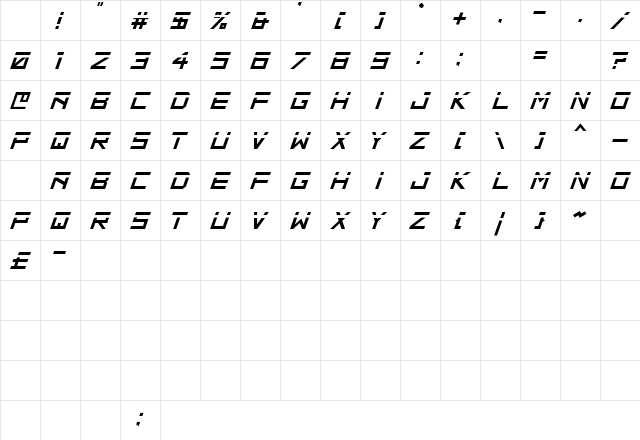
Complete HBM Ridge Sliced glyph index. Displaying only characters natively supported by HBM Ridge Sliced font.
HBM Ridge is a composed and adaptable typeface that performs quietly and consistently across a wide range of design contexts.